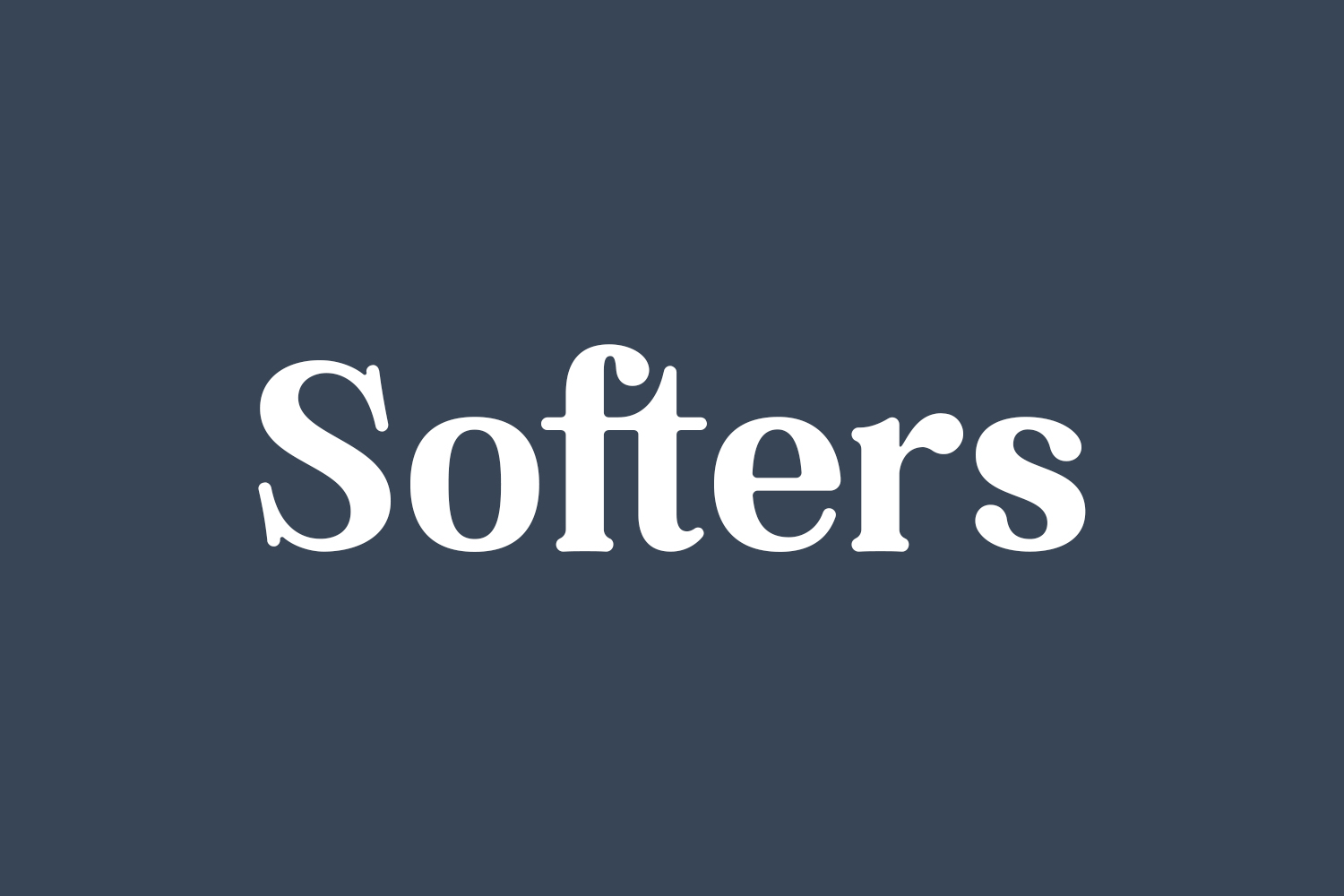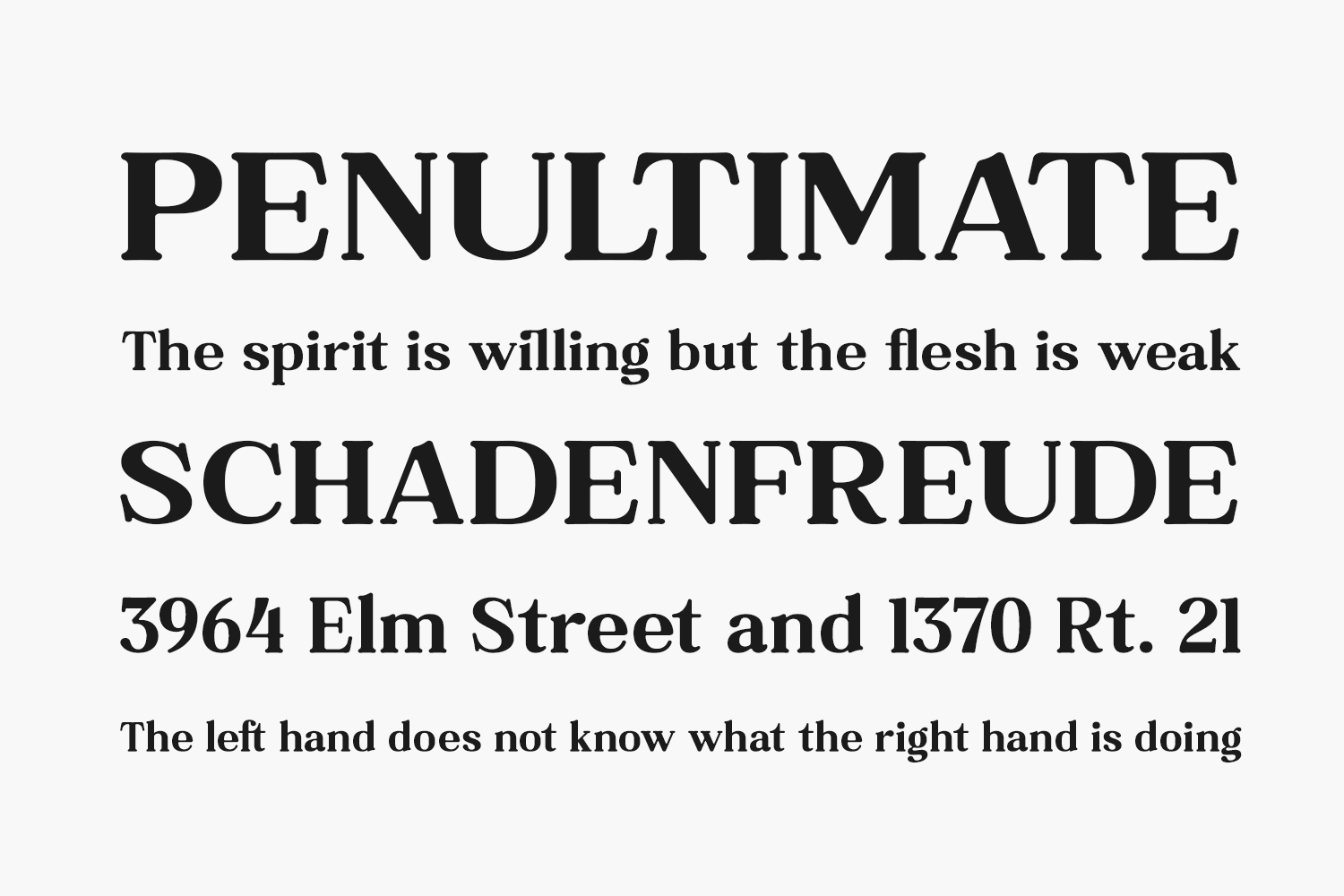
Softers Free Font is a stylish and modern serif font. Featuring just the right amount of trendiness combined with a classy look, this font is suitable for creating unique and stunning designs. Softers Free Font was designed by Storytype Studio and is free for personal use only. Please purchase the full version for commercial use.